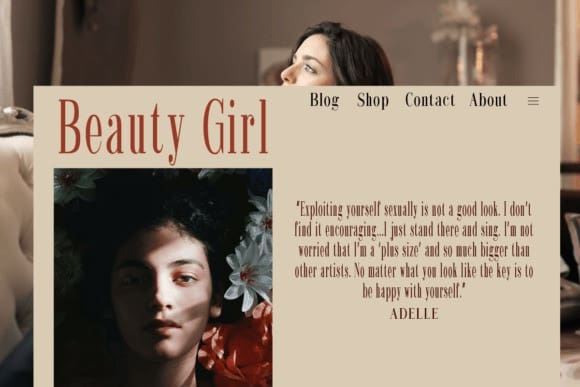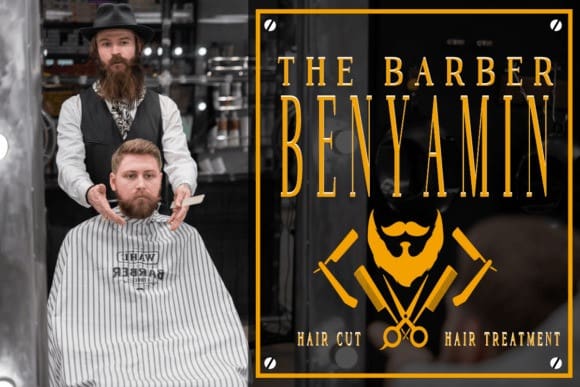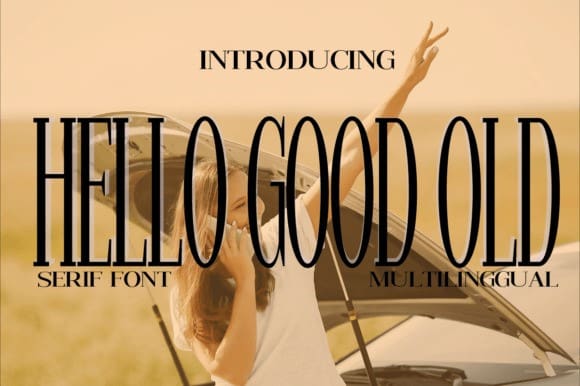
Hello Good Old Style Slant Font
Hello Good Old Style Slant. It has a modern style with a touch of creative ideas that is very suitable to be applied anywhere that requires creative ideas. Is an elegant, authentic and thin lettered serif font. It will add a luxury spark to any design project that you wish to create!